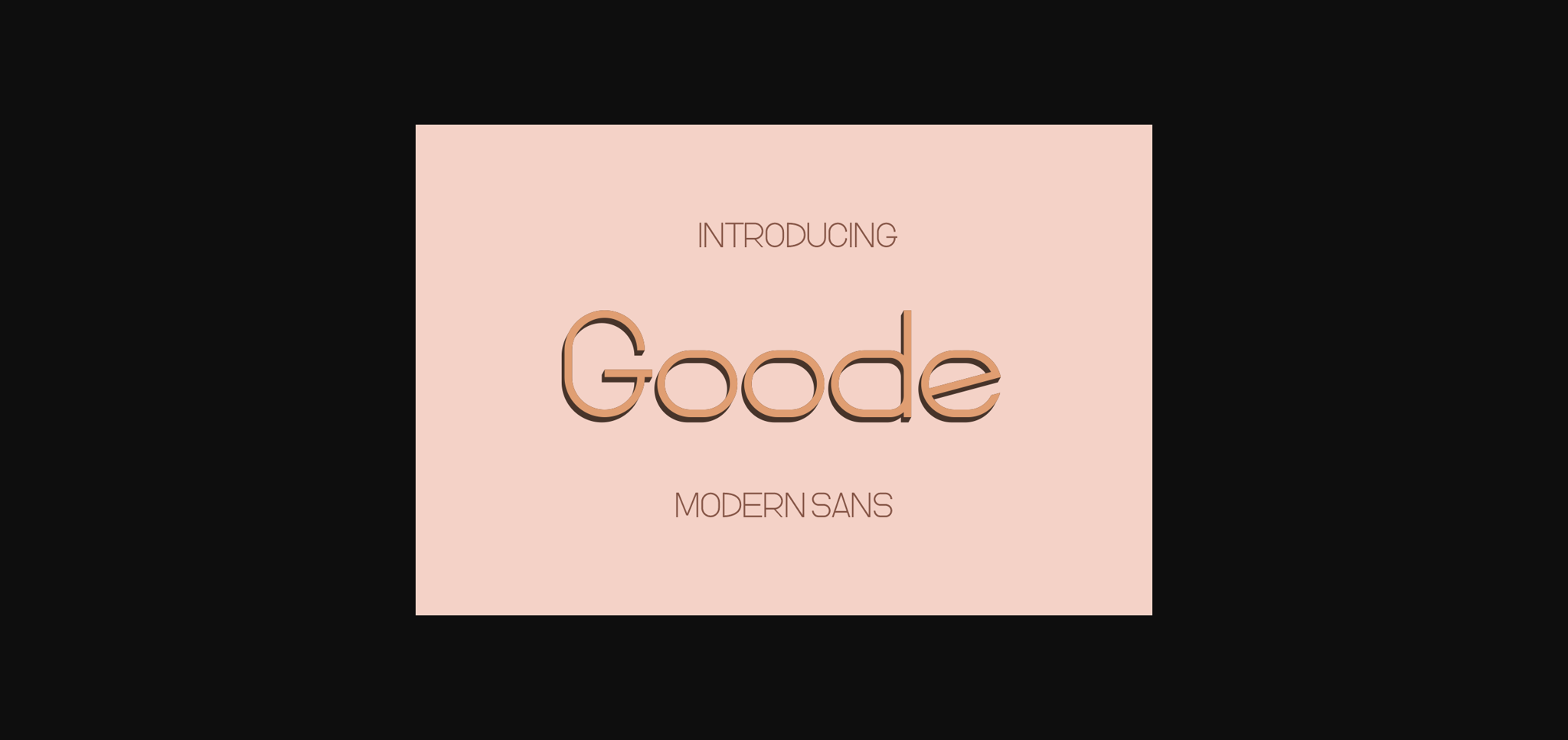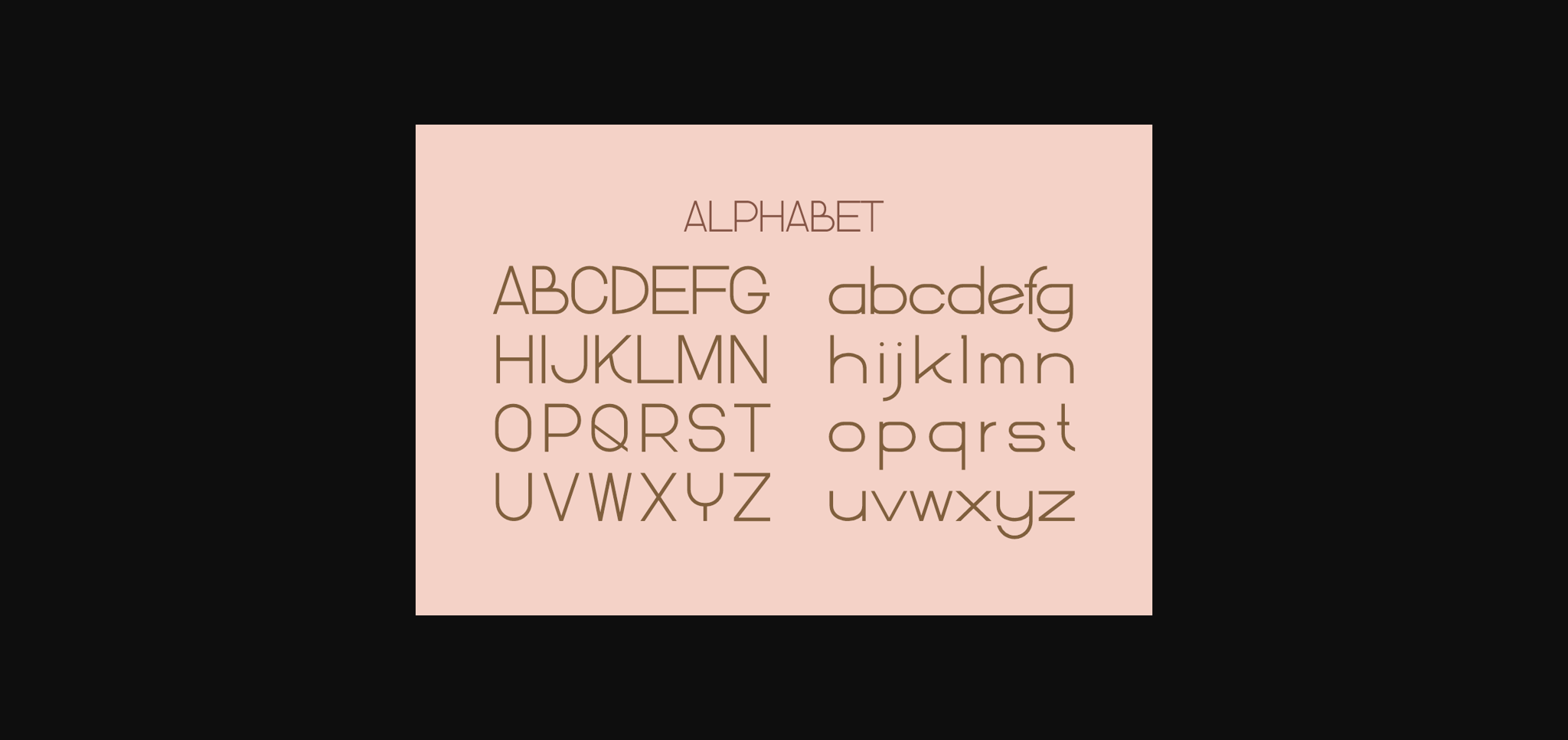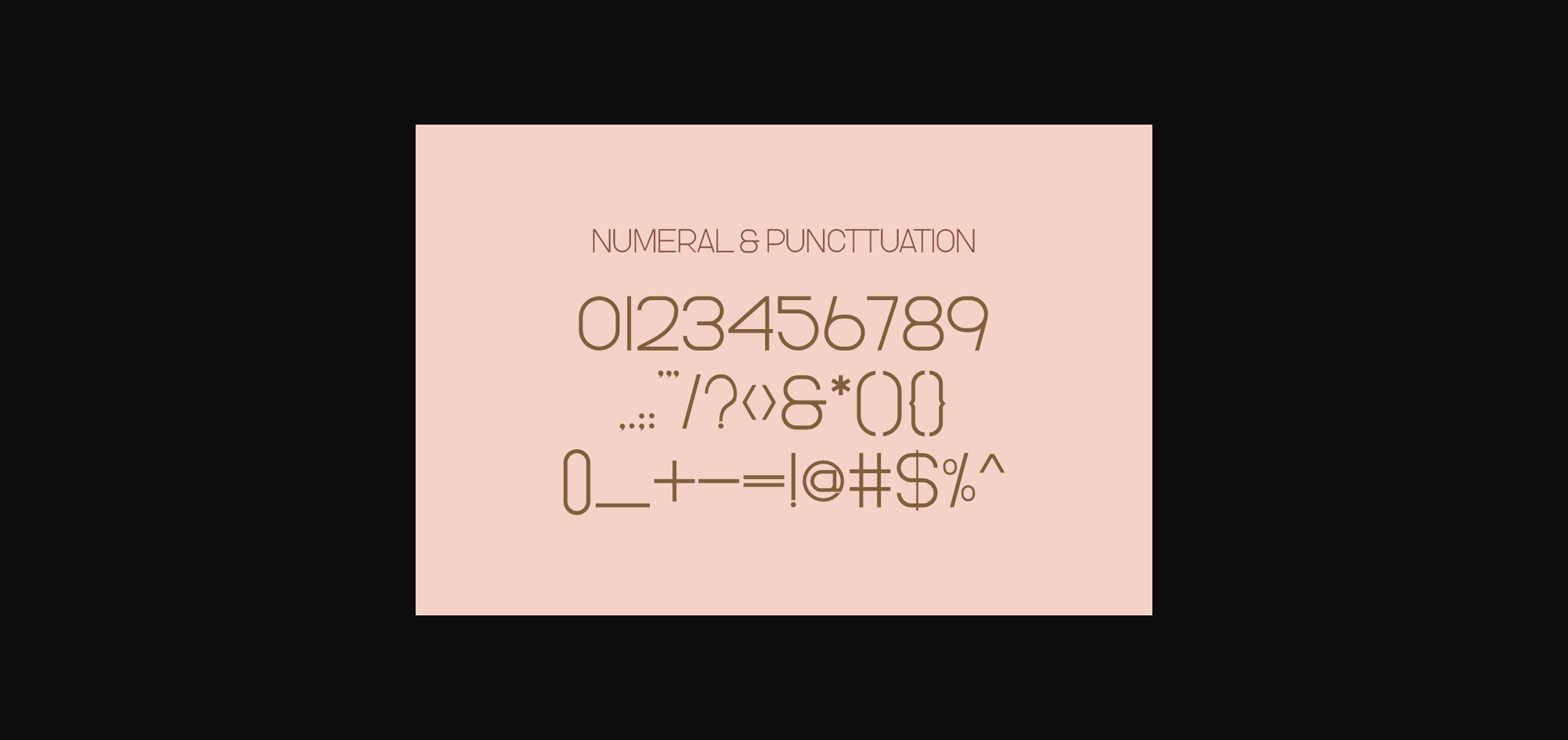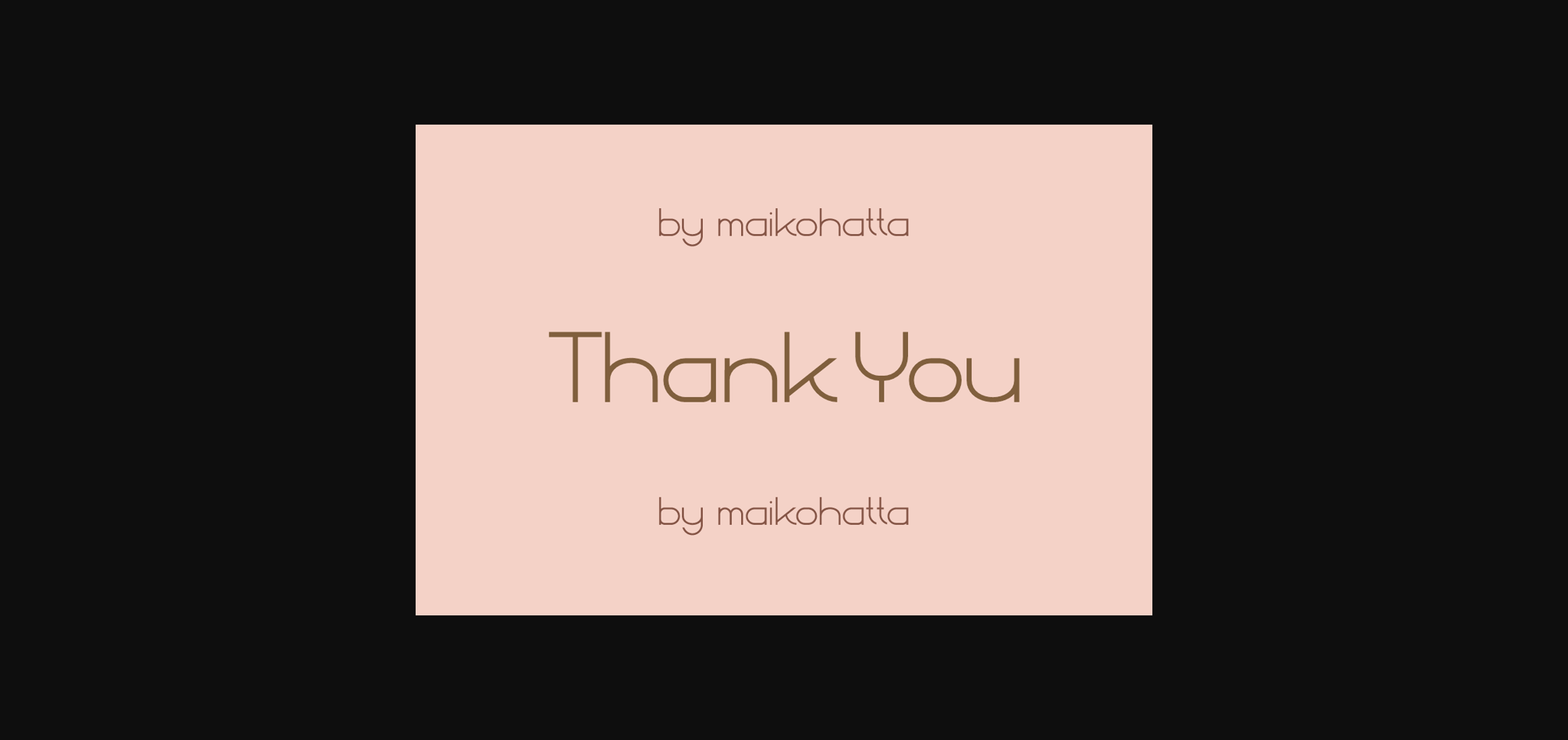
Goode Font
About Goode Font
Goode is a clear and authentic sans-serif font. The font is suitable for any branding project like logo, t-shirt printing, esports, and many more. It will look outstanding in a wide range of contexts.